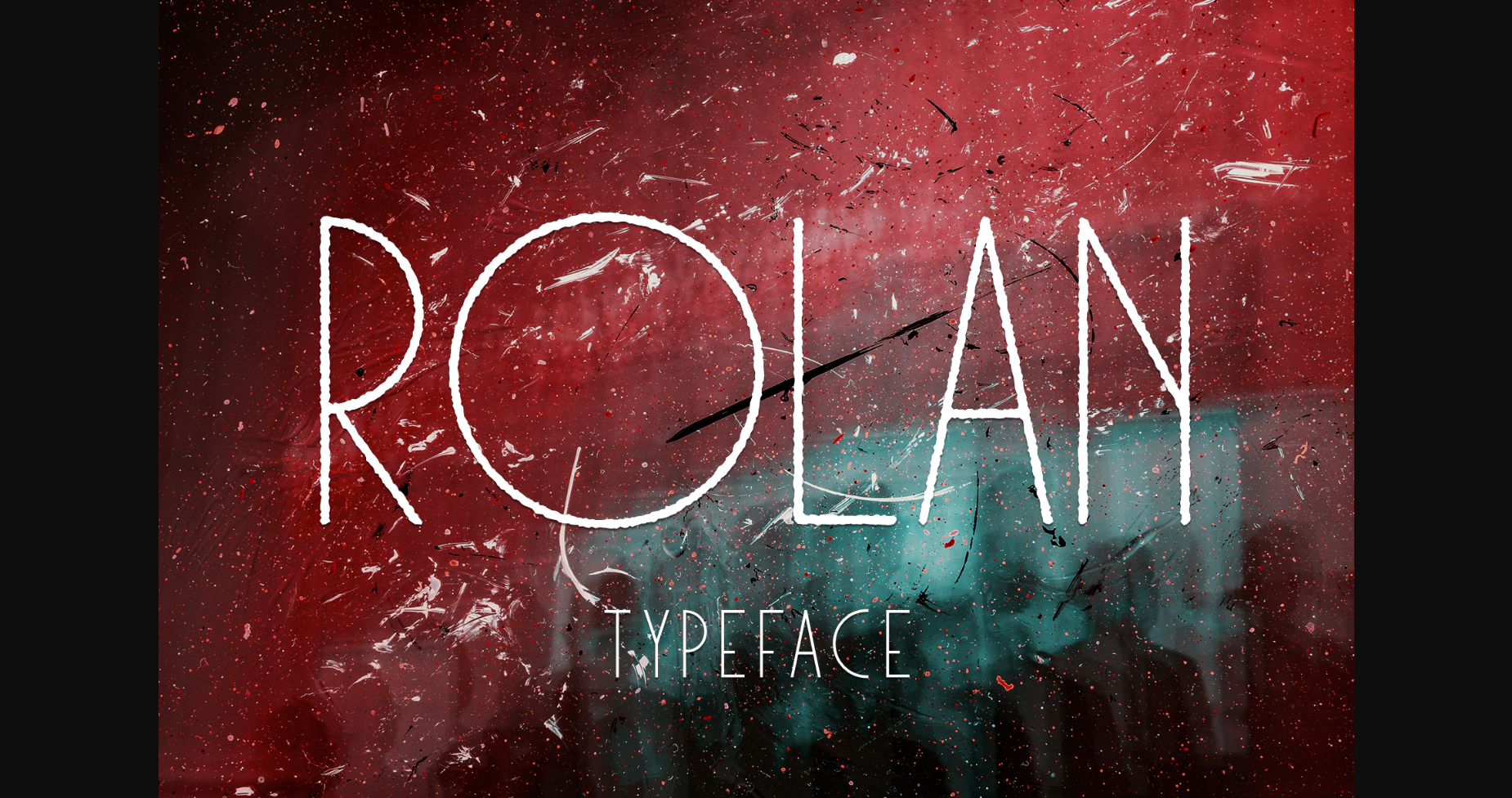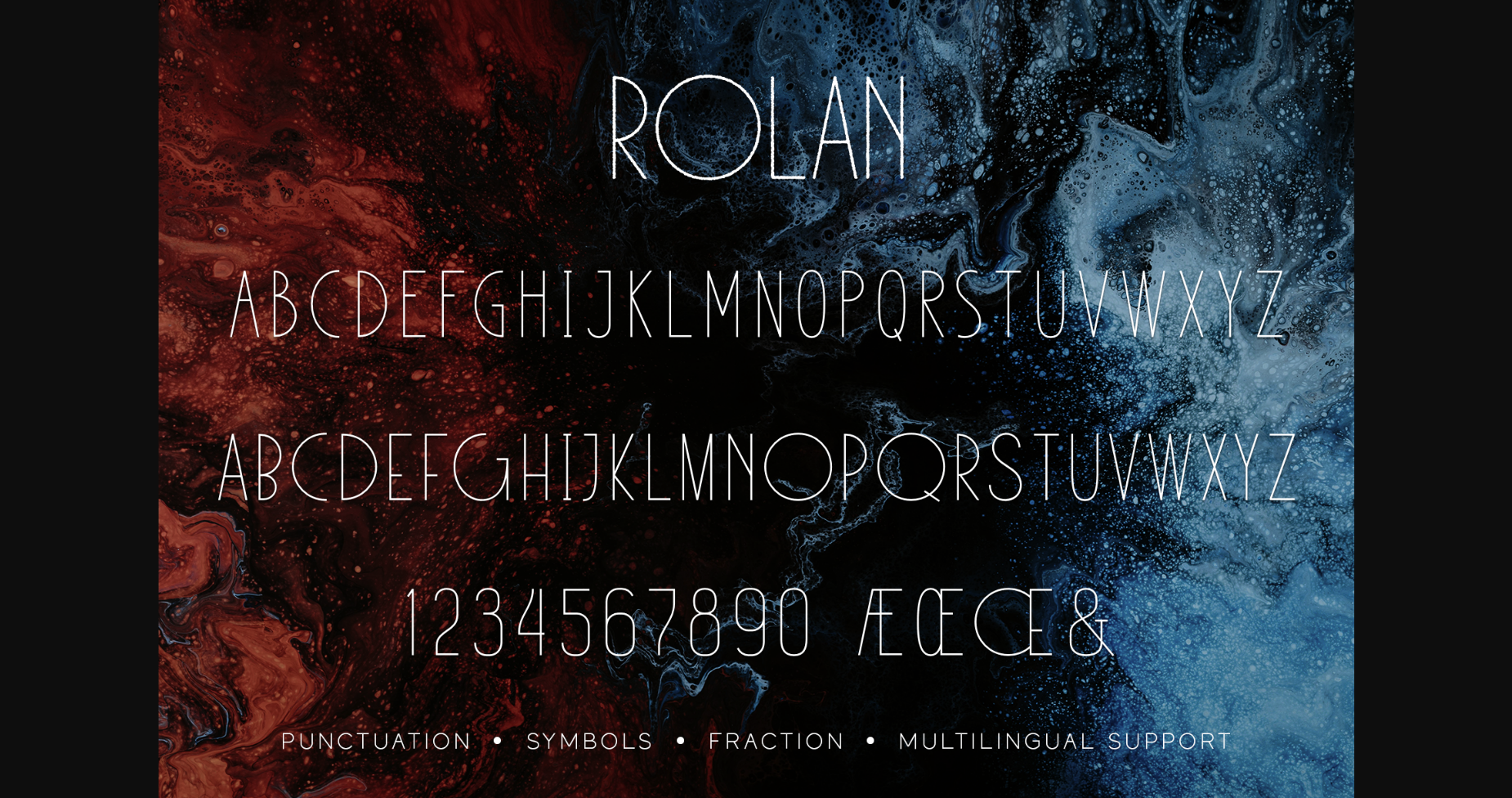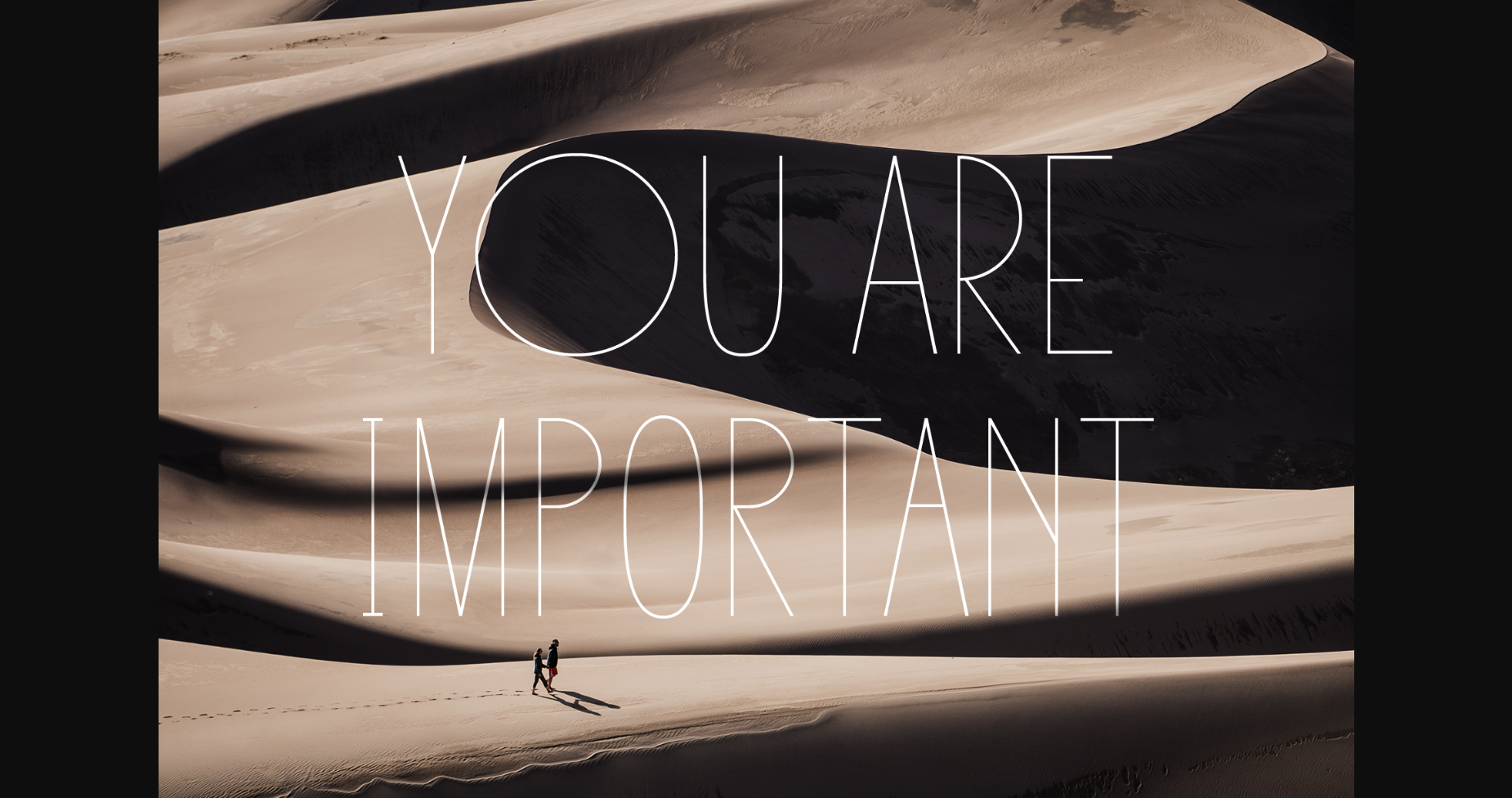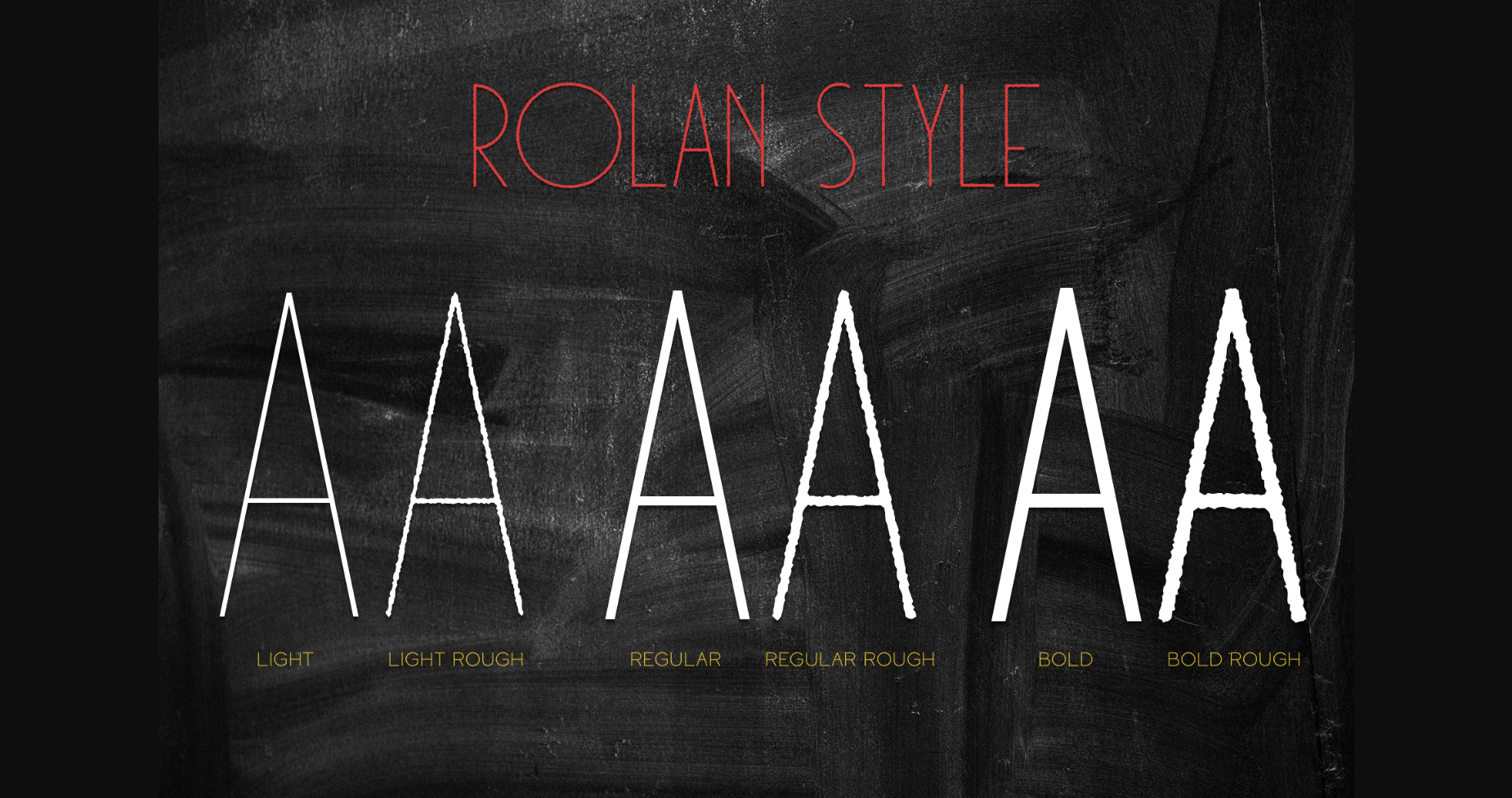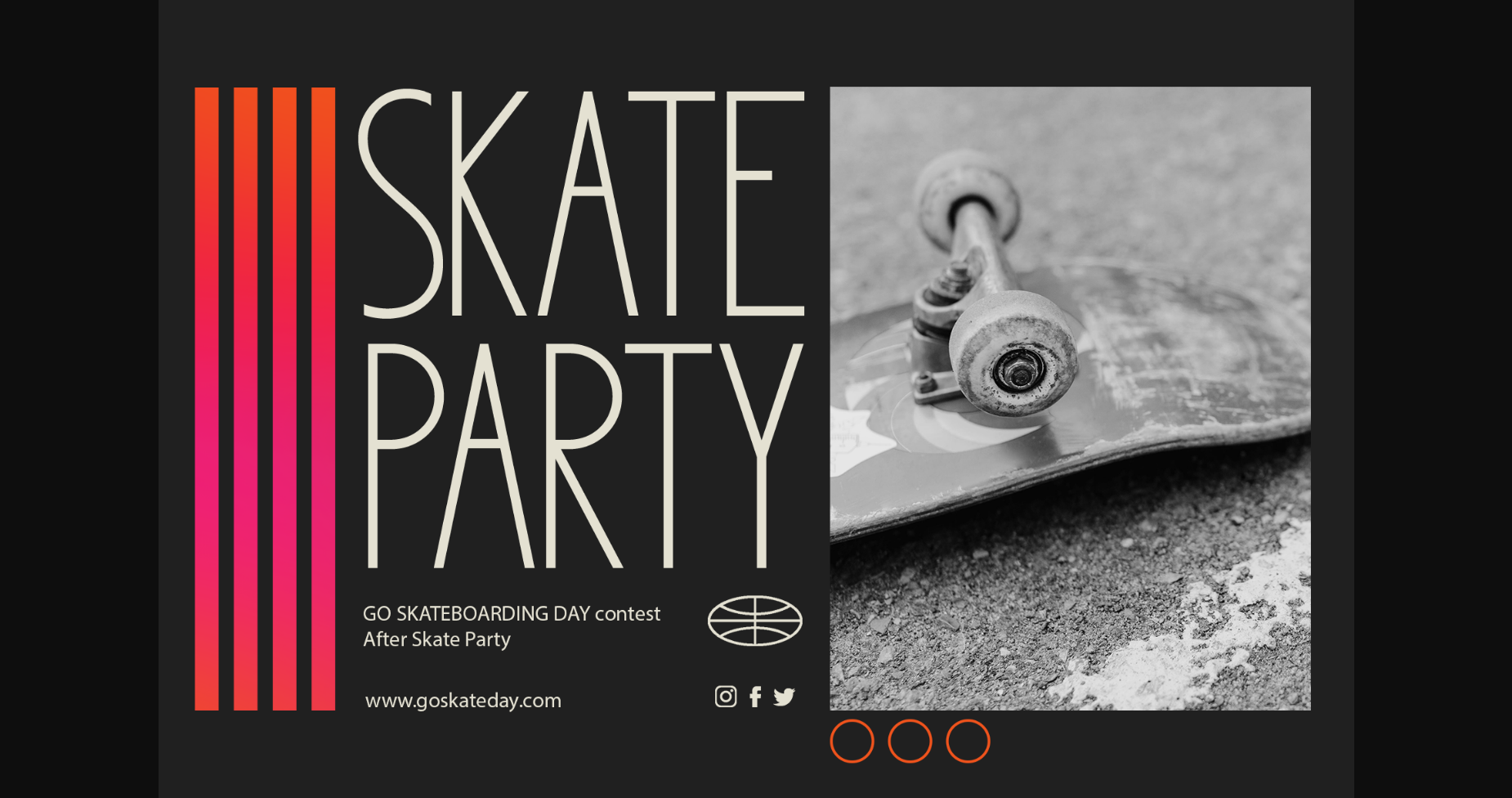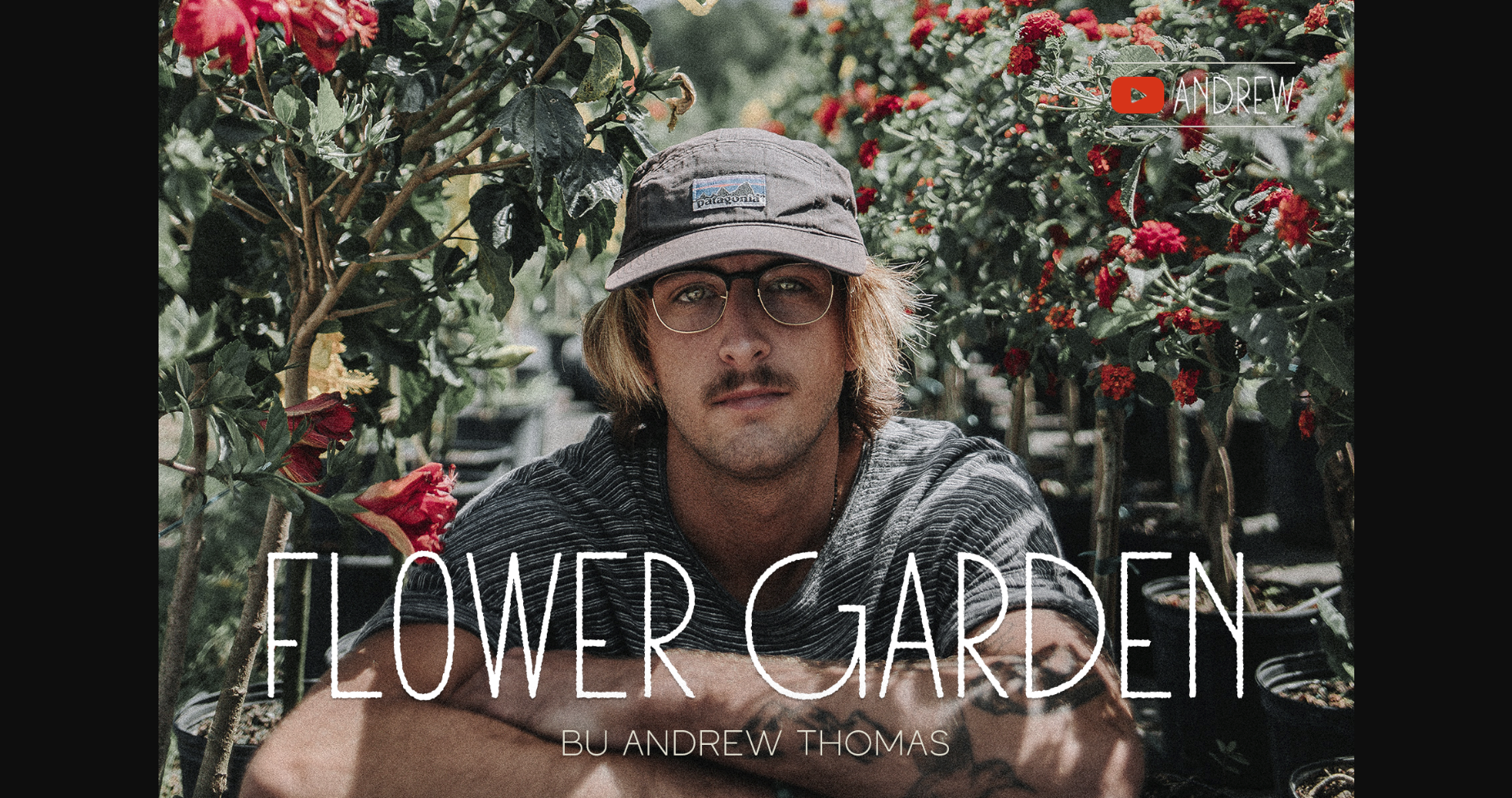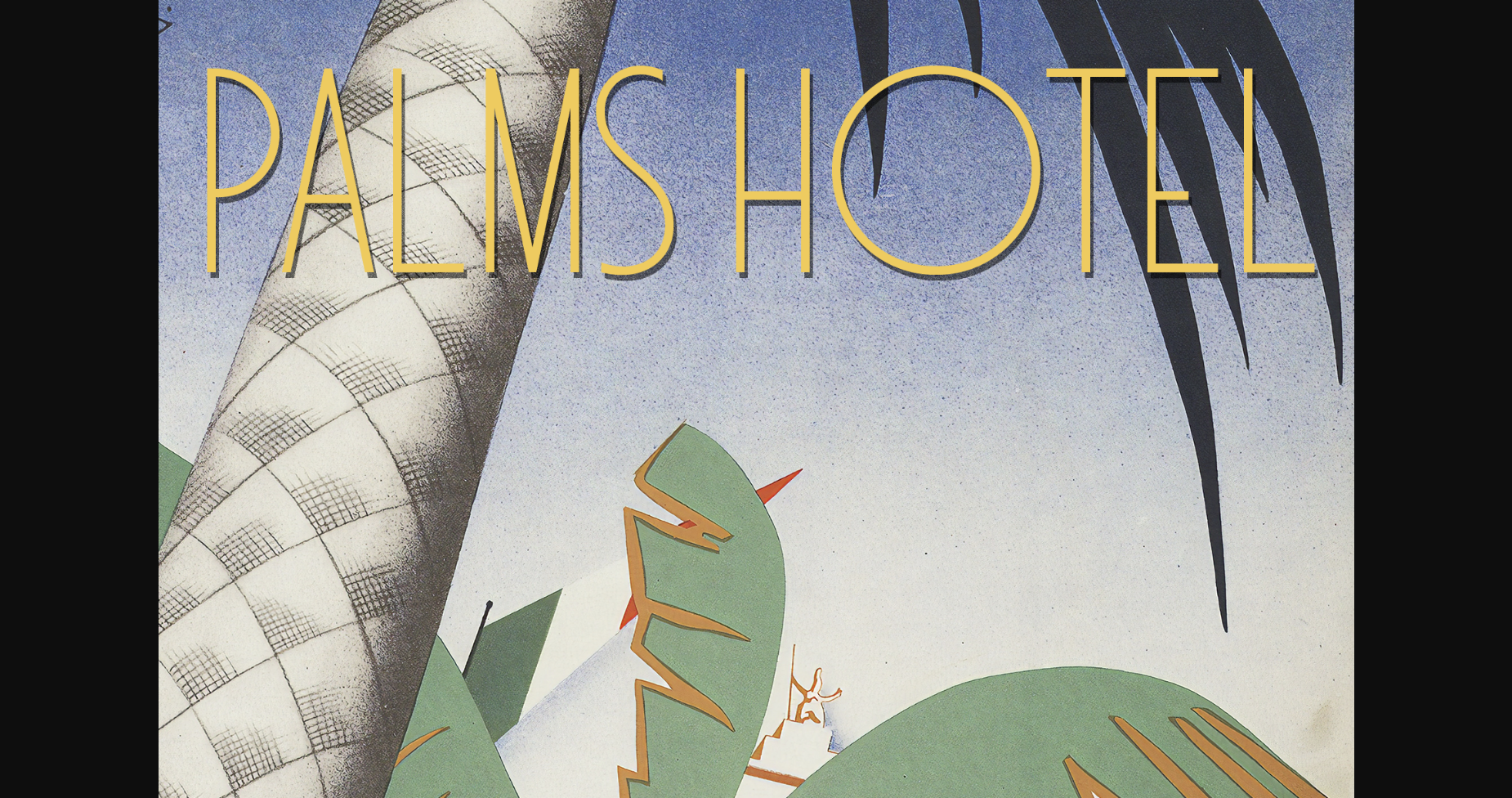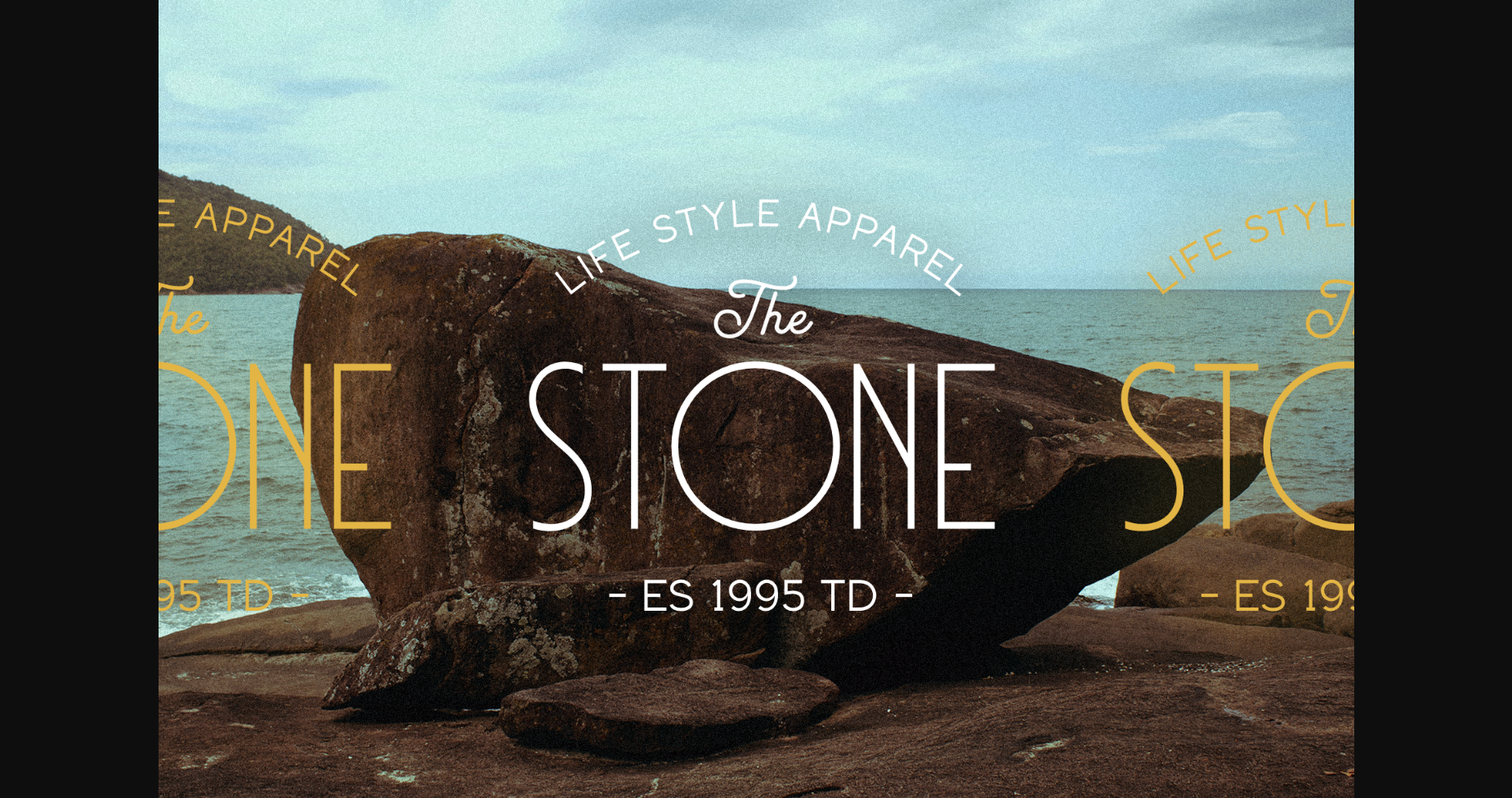
Rolan Font
About Rolan Font
Rolan is a minimal and thin lettered sans serif font. This font is suitable for designs such as t-shirts, sportswear, logos, advertisements, clothing, and more.